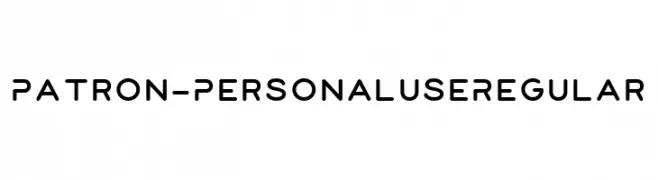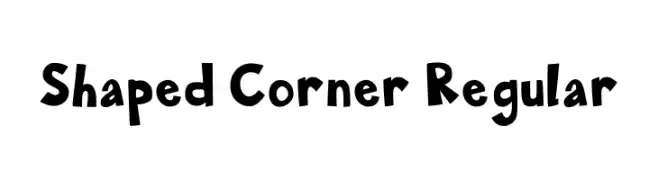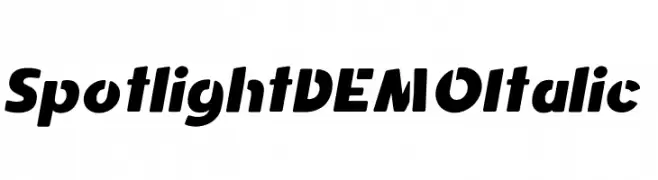
A playful and whimsical font with bold, rounded letterforms and a hand-drawn feel.
A bold, impactful typeface with a strong, geometric style.
A playful, handwritten font with tall, narrow letters and rounded edges.
A modern, geometric sans-serif font with rounded edges and uniform stroke width.
Bold, italic font with shadowed, three-dimensional effect.
A bold, distressed font with a playful and handcrafted style.
A playful, bold font with rounded corners and a whimsical style.
A playful, bold font with rounded edges and a slightly condensed style.
A bold, italicized font with a dynamic and modern style.